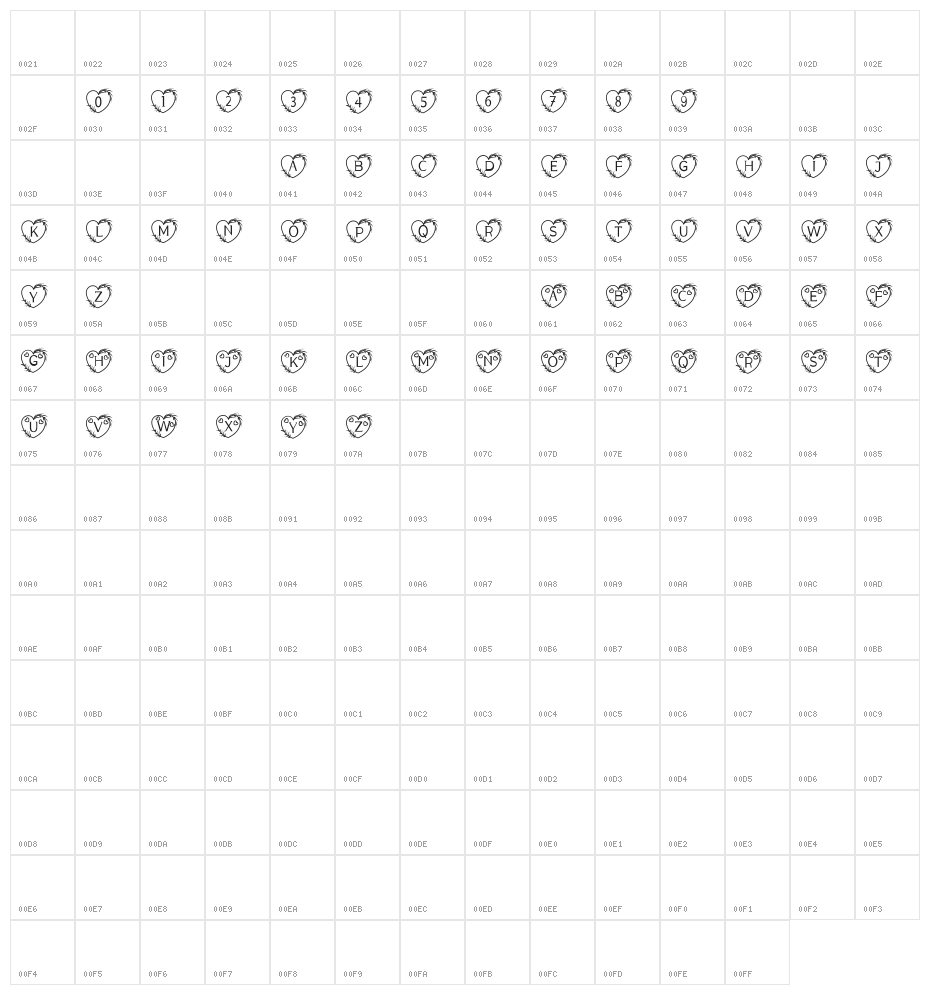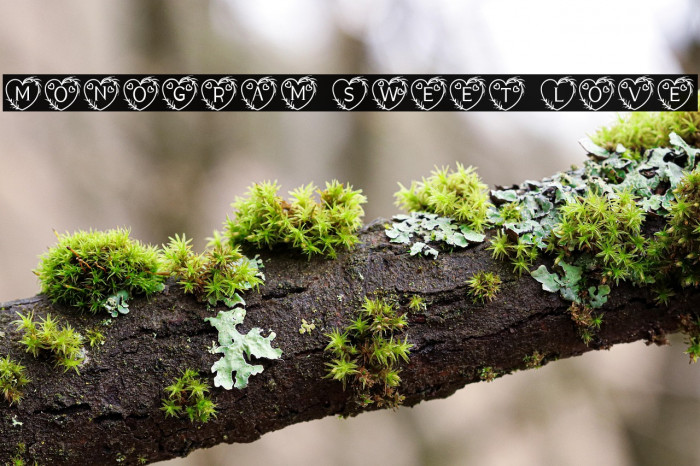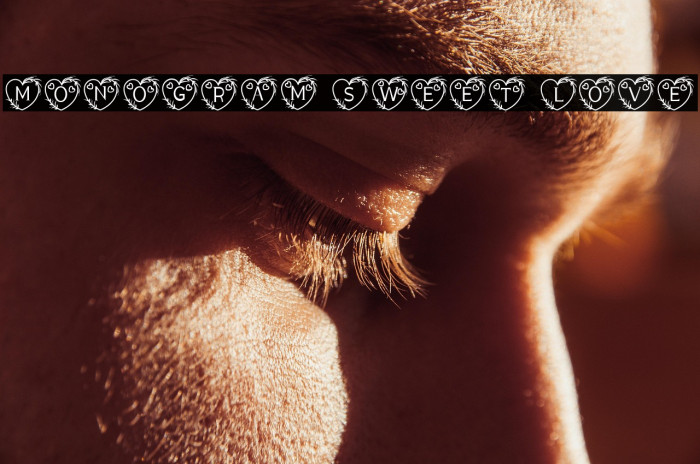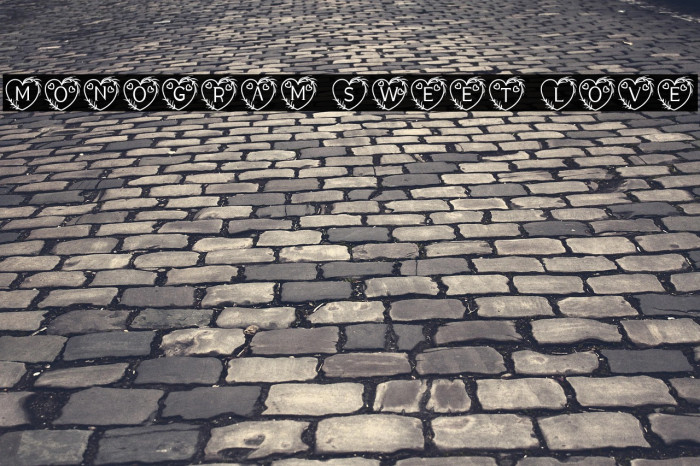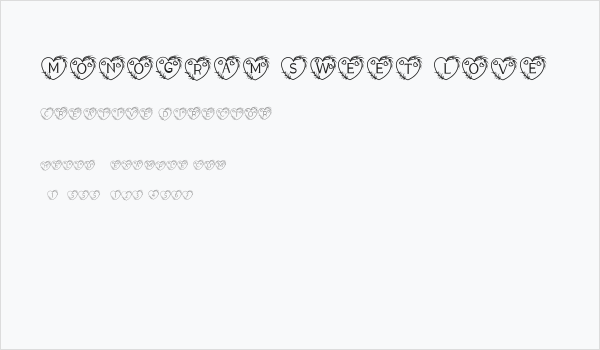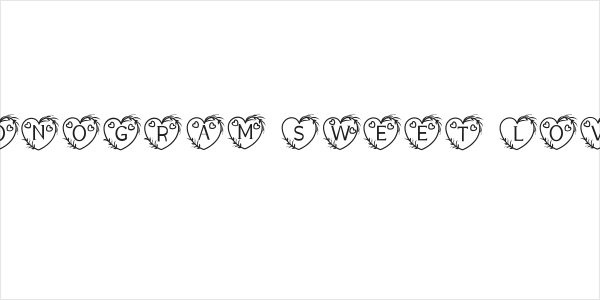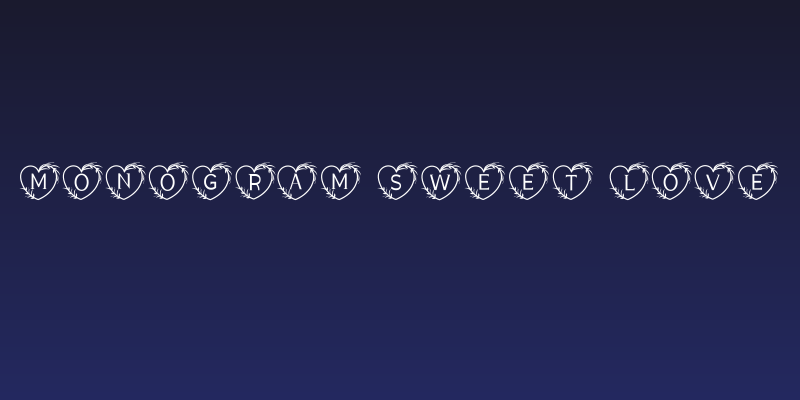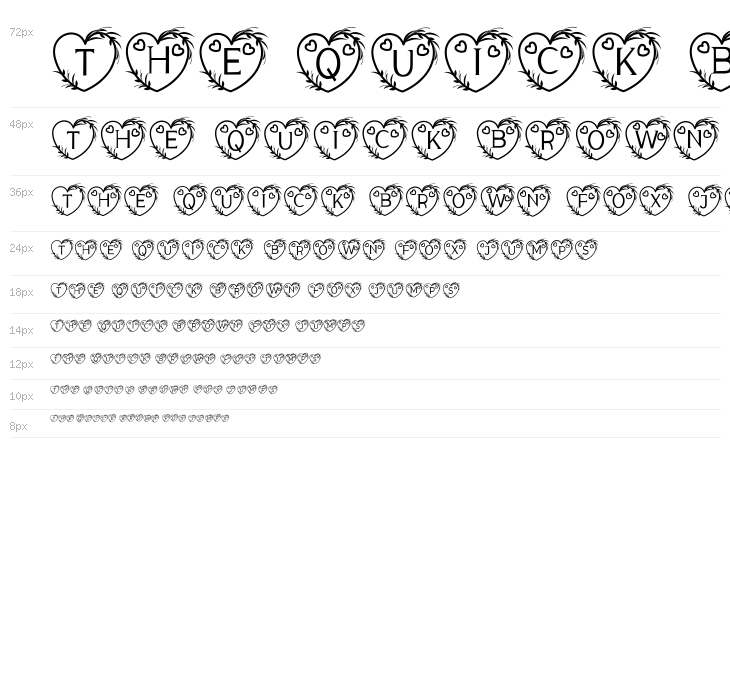
Monogram Sweet Love Font
Monogram Sweet Love Description
This decorative font features characters encased in heart shapes, adorned with a delicate floral accent on the upper left. The letters and numbers are centered within each heart, offering a whimsical and romantic aesthetic. The design is consistent across uppercase, lowercase, and numeric characters, maintaining a playful yet elegant style. The font's unique presentation makes it ideal for projects that require a touch of charm and affection.
| Overall Style | Romantic, Whimsical |
| Proposed Projects | Ideal for wedding invitations, Valentine's Day cards, romantic event branding, and personalized gifts. |